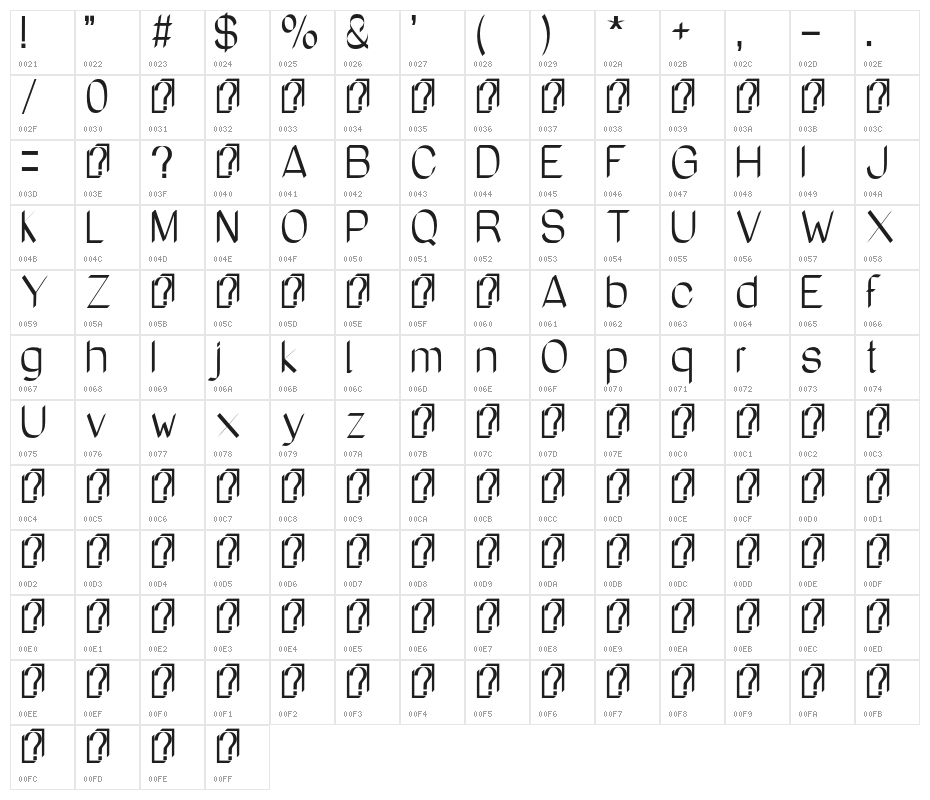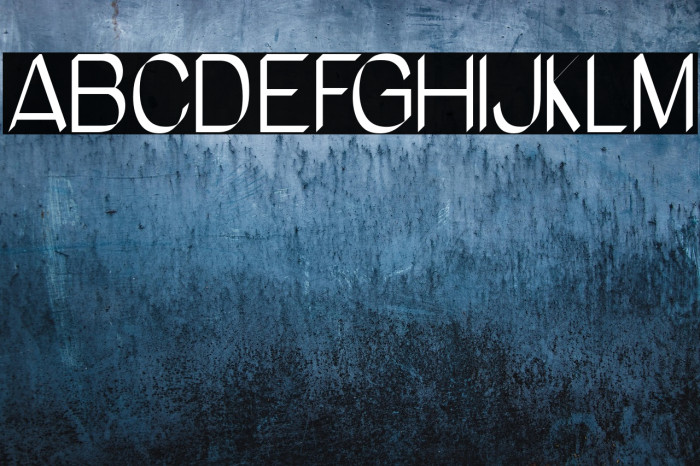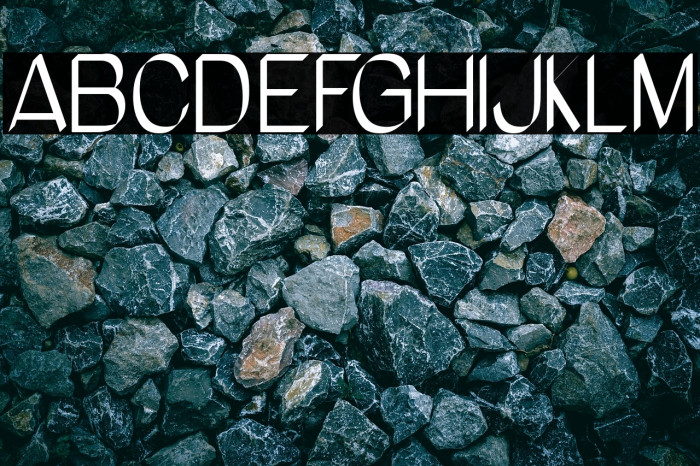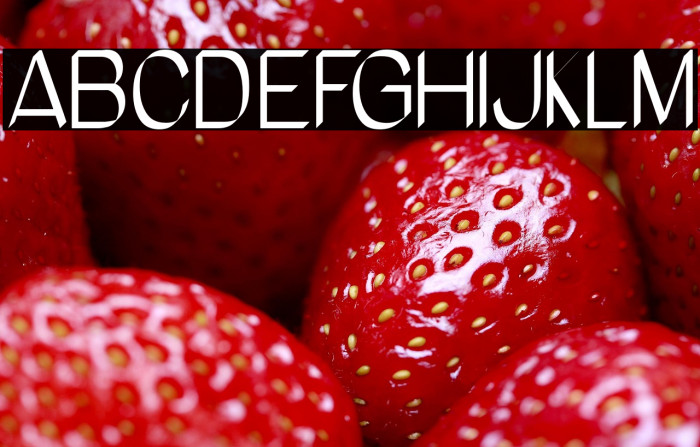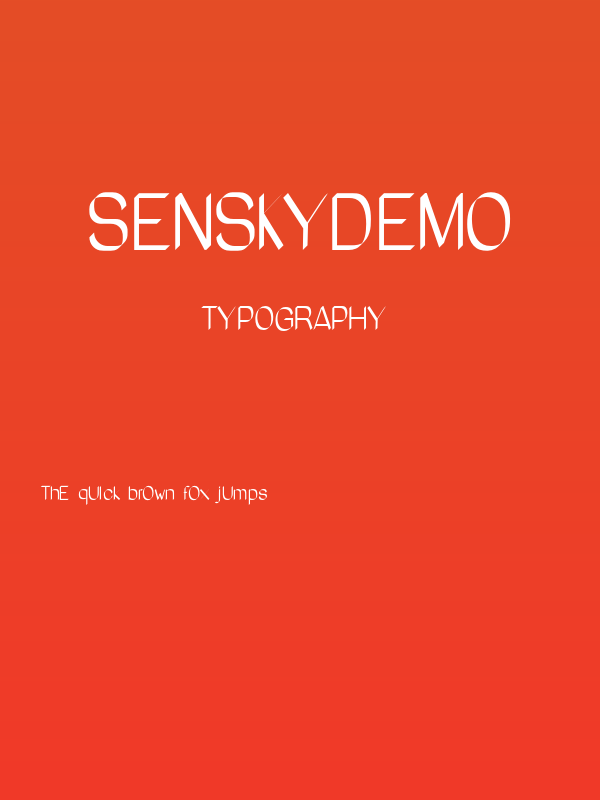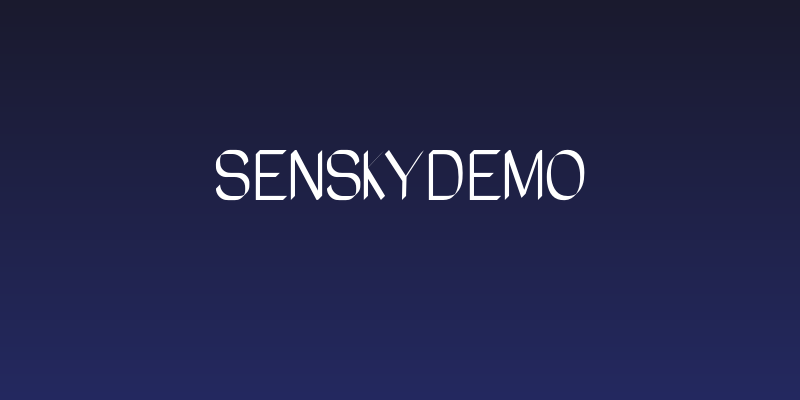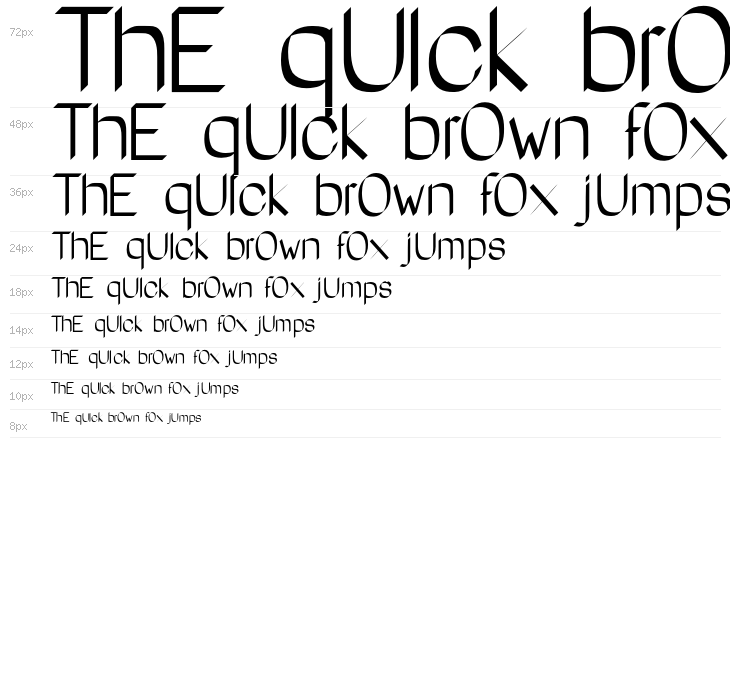
SeNSKYDEMO Font
SeNSKYDEMO Description
This font features a modern and sleek design with a geometric structure. The characters are crafted with clean lines and sharp angles, giving it a contemporary and sophisticated appearance. The uppercase letters exhibit a uniform height, while the lowercase letters maintain a consistent baseline, enhancing readability. The numerals are distinct and align well with the overall style, though some characters appear to be placeholders. The special characters are well-integrated, maintaining the font's cohesive look. This typeface is ideal for projects that require a modern and professional aesthetic.